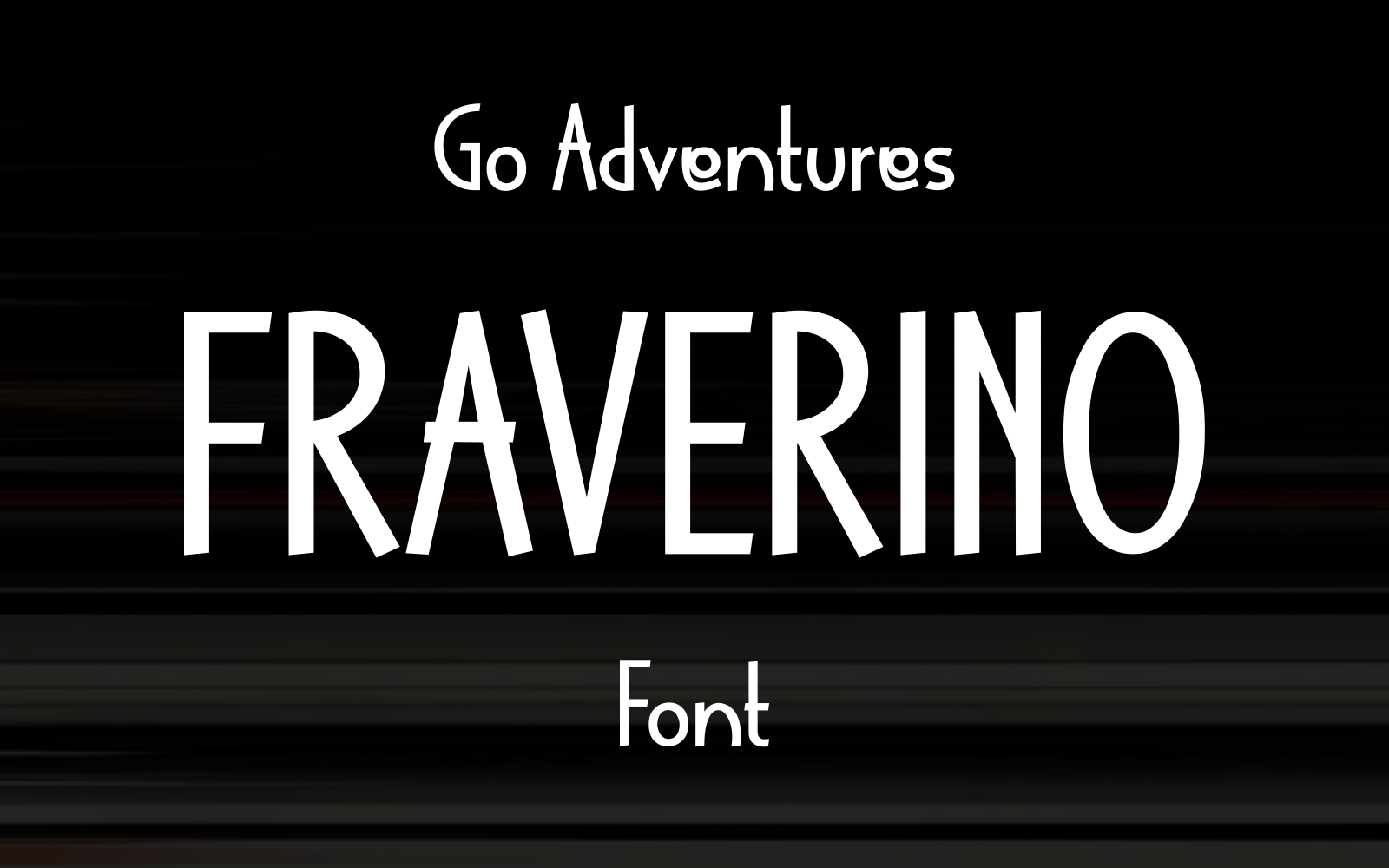
Fraverino Font | Modern Travel Sans Typeface
Fraverino is a clean and modern sans-serif font crafted for travel, vacation, and tourism-inspired projects. Featuring both uppercase and lowercase letters, this typeface offers excellent readability and flexibility for branding, signage, games, and kid-friendly adventure themes. Its bold yet friendly appearance makes it ideal for travel campaigns, journey guides, adrenaline-filled kid games, and promotional materials. Available in .OTF and .TTF formats for seamless use across all platforms.